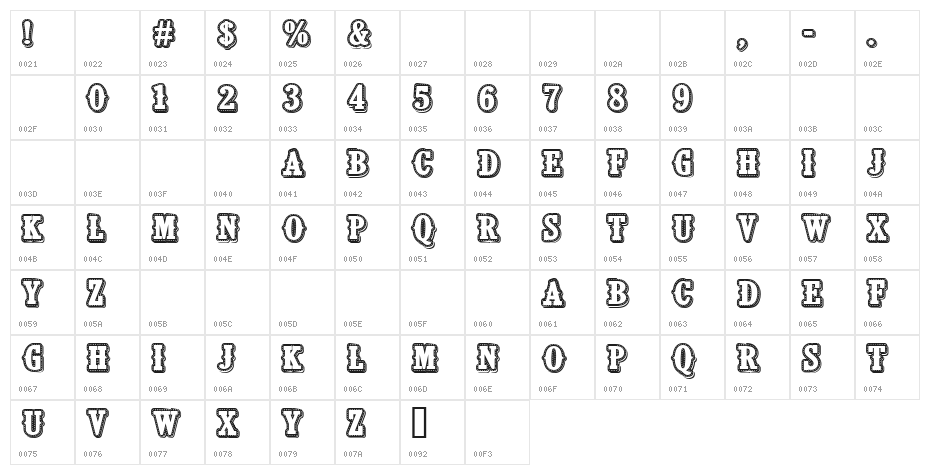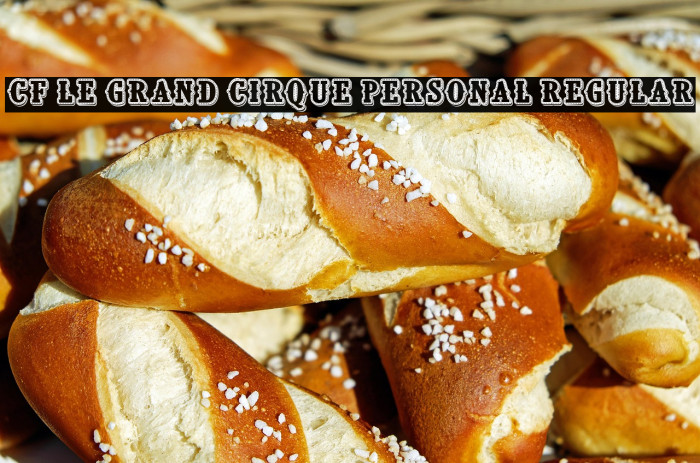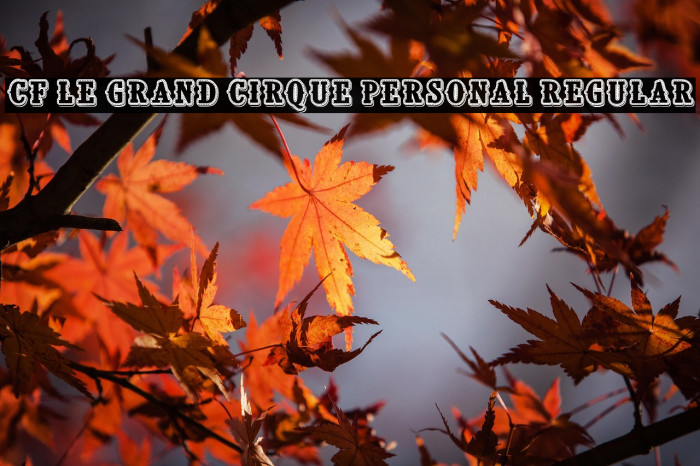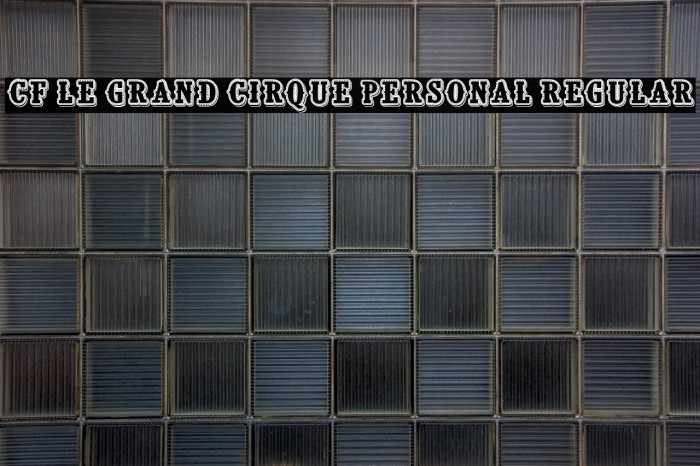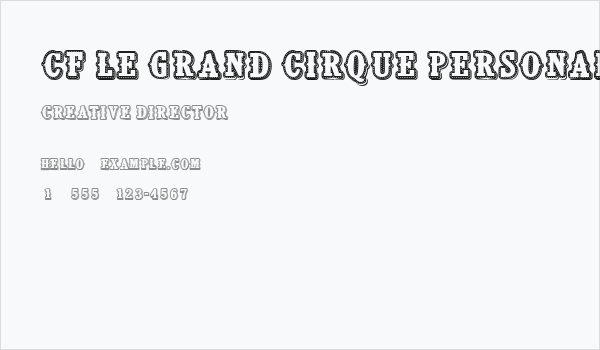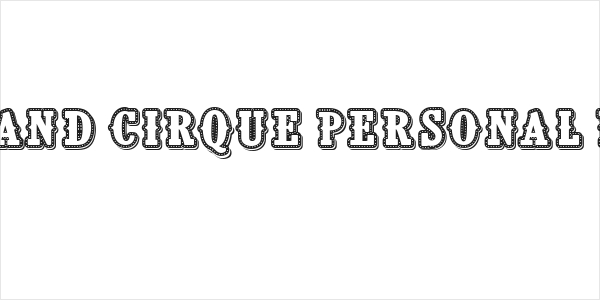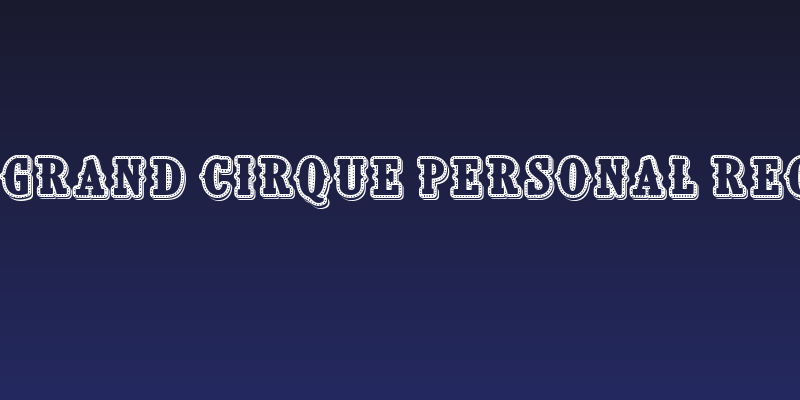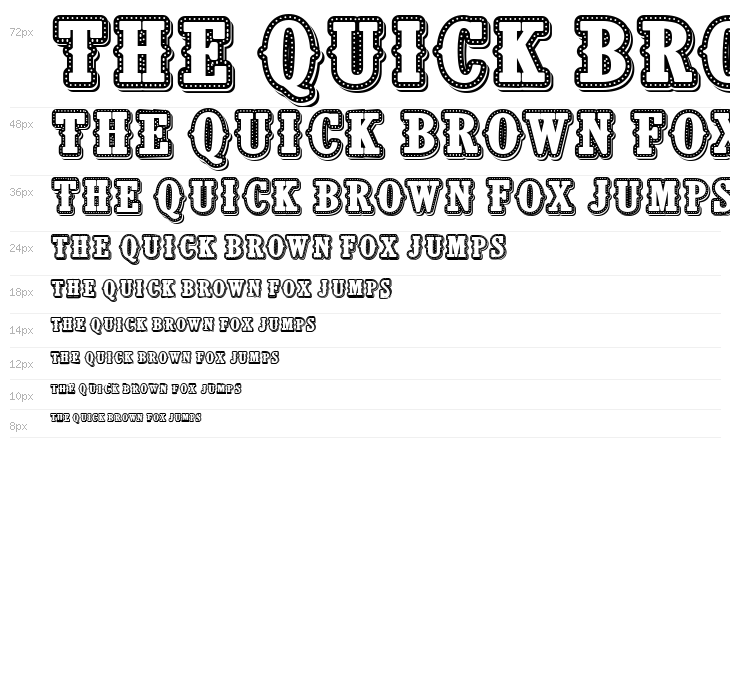
CF Le grand cirque Personal Regular Font
CF Le grand cirque Personal Regular Description
This font features a bold and decorative style, reminiscent of vintage circus posters. Each character is outlined with a dotted pattern, adding a playful and eye-catching element. The uppercase and lowercase letters maintain a consistent design, with a strong emphasis on boldness and decorative flair. The numbers and special characters follow the same stylistic approach, ensuring uniformity across all glyphs. This font's unique design makes it ideal for projects that require a touch of nostalgia and whimsy.
| Proposed Projects | Ideal for circus-themed posters, vintage advertisements, playful branding, and event invitations. |